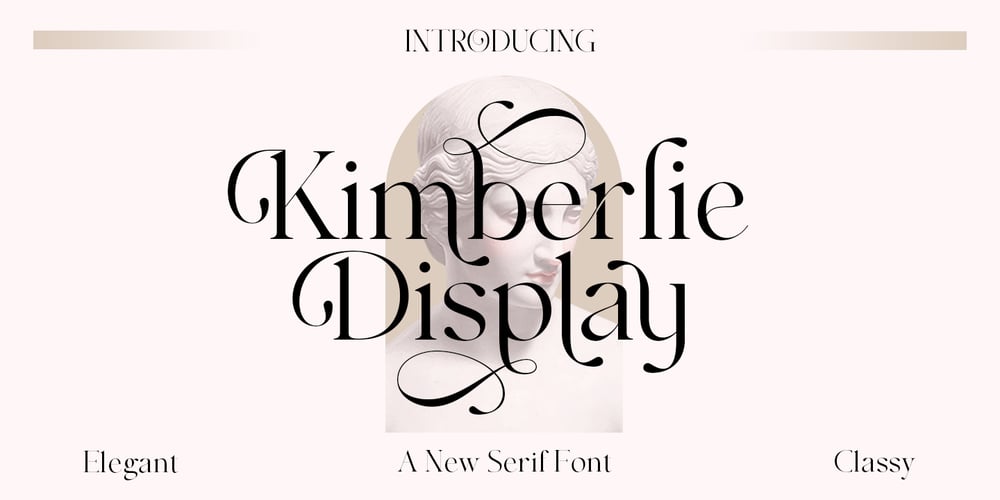
Kimberlie Display Font Family was designed by Muammar Kadafi and published by Attract Studio. Kimberlie Display contains 1 styles and family package options. Kimberlie is a luxurious display serif font with unique character by combining geometric shapes with organic curvy details. It is a unique typeface for your individual personality. Inspired by old-style serif and contemporary serif fonts. The extreme contrast between thick and thin strokes gives a harmonic and stylish look. Elegant and sensuality didone serif enhanced by ligatures, alternates and swashes. Kimberlie features OpenType with 1025+ glyphs, 210 Stylistic Alternates, 486 Ligatures. Perfect for a wide range of uses. From greeting cards to magazines, wedding invitations, logos to website etc.